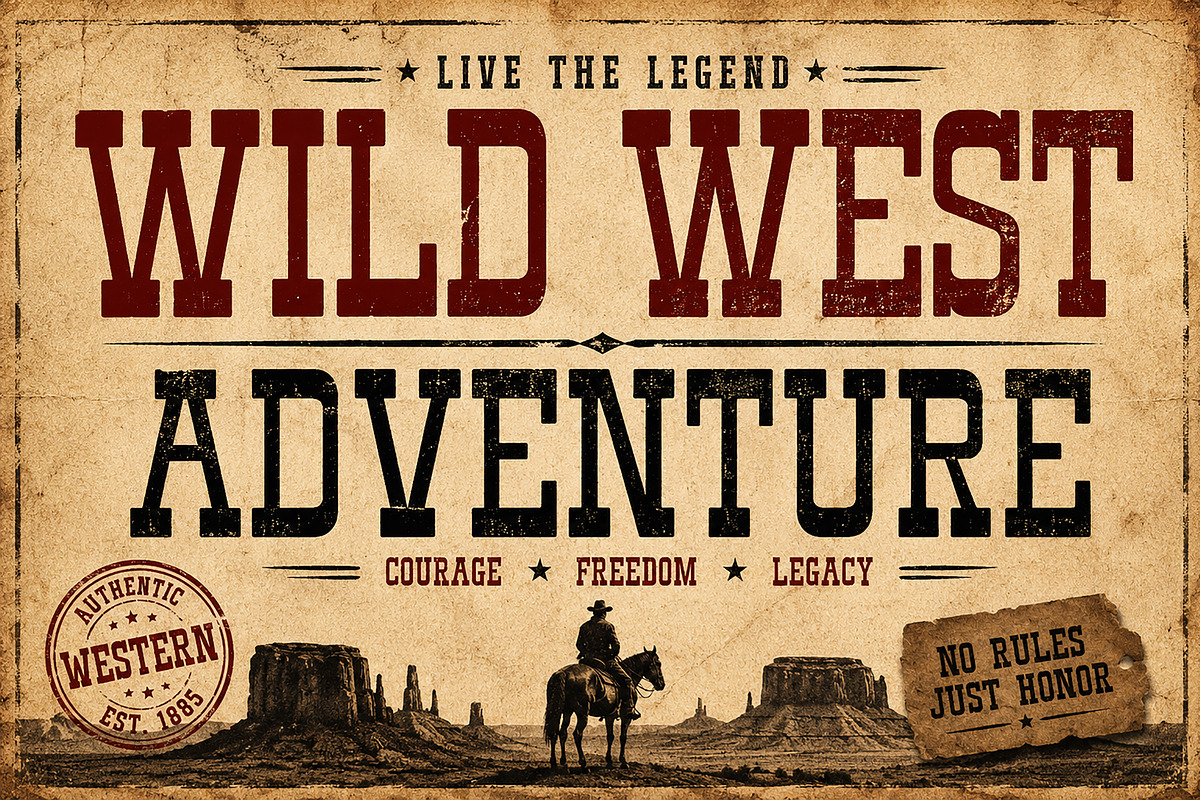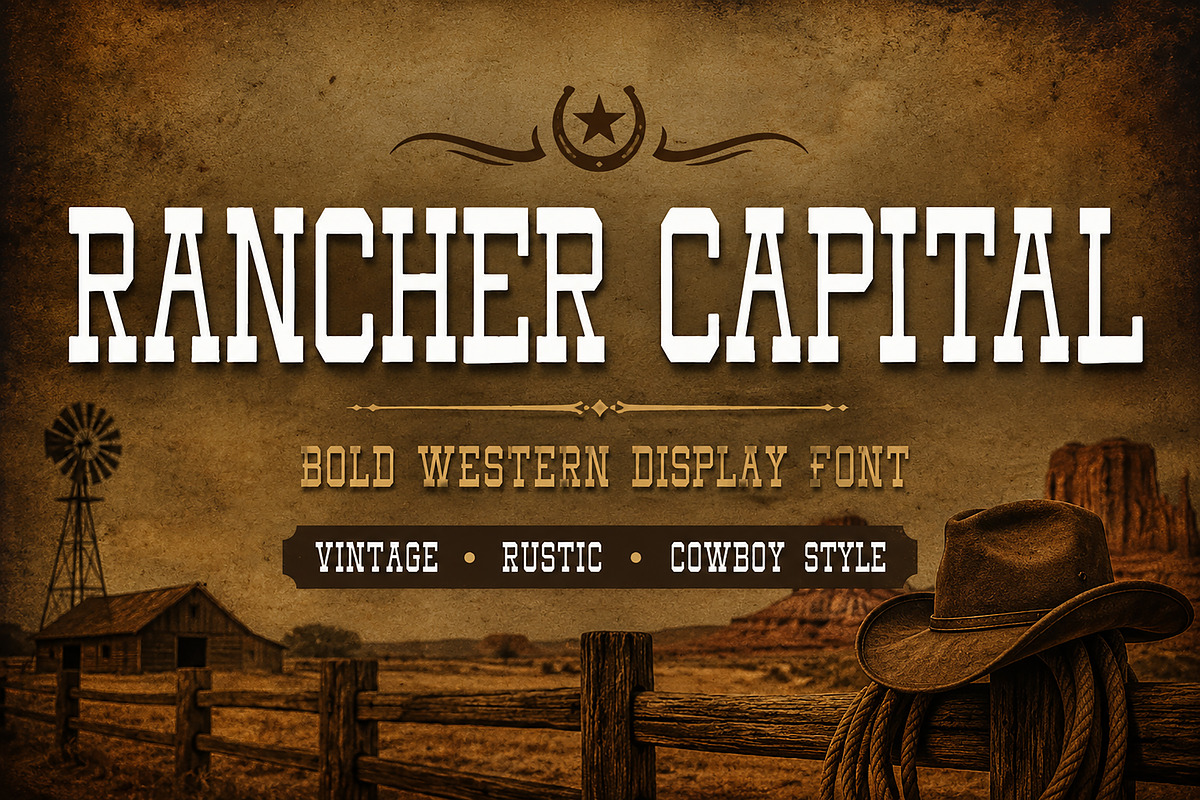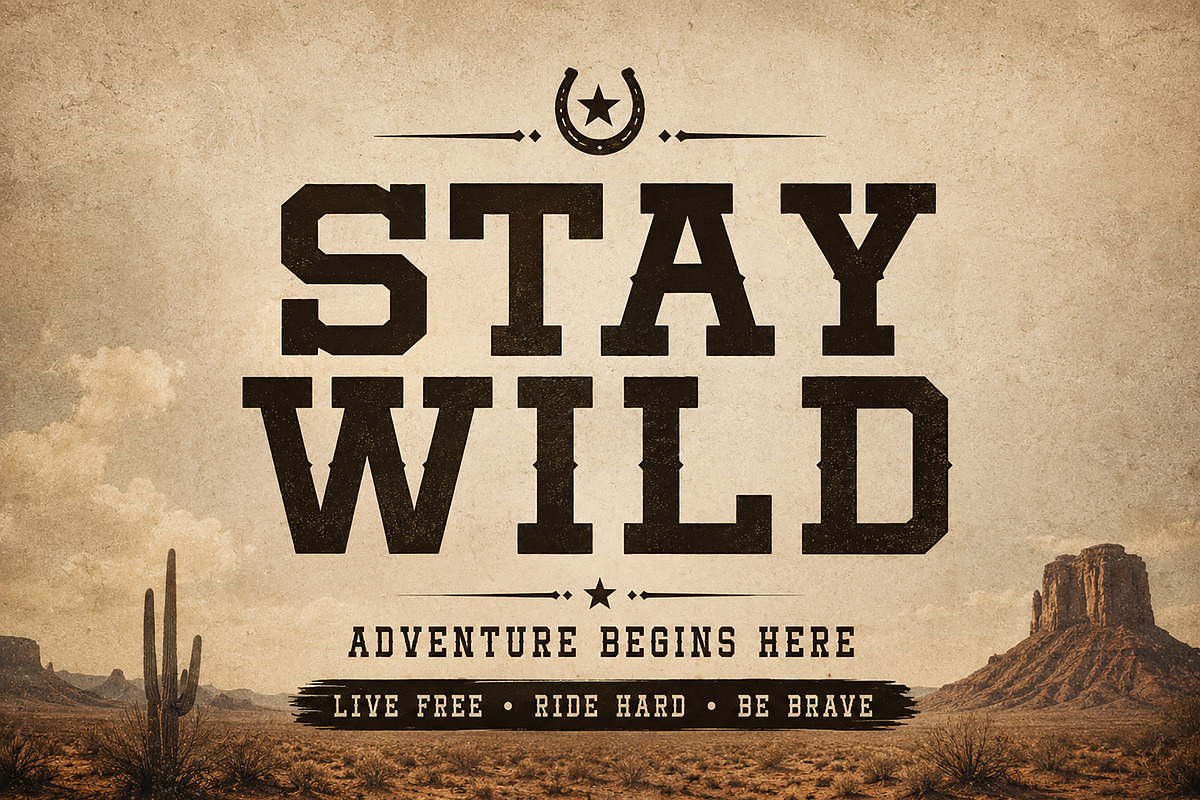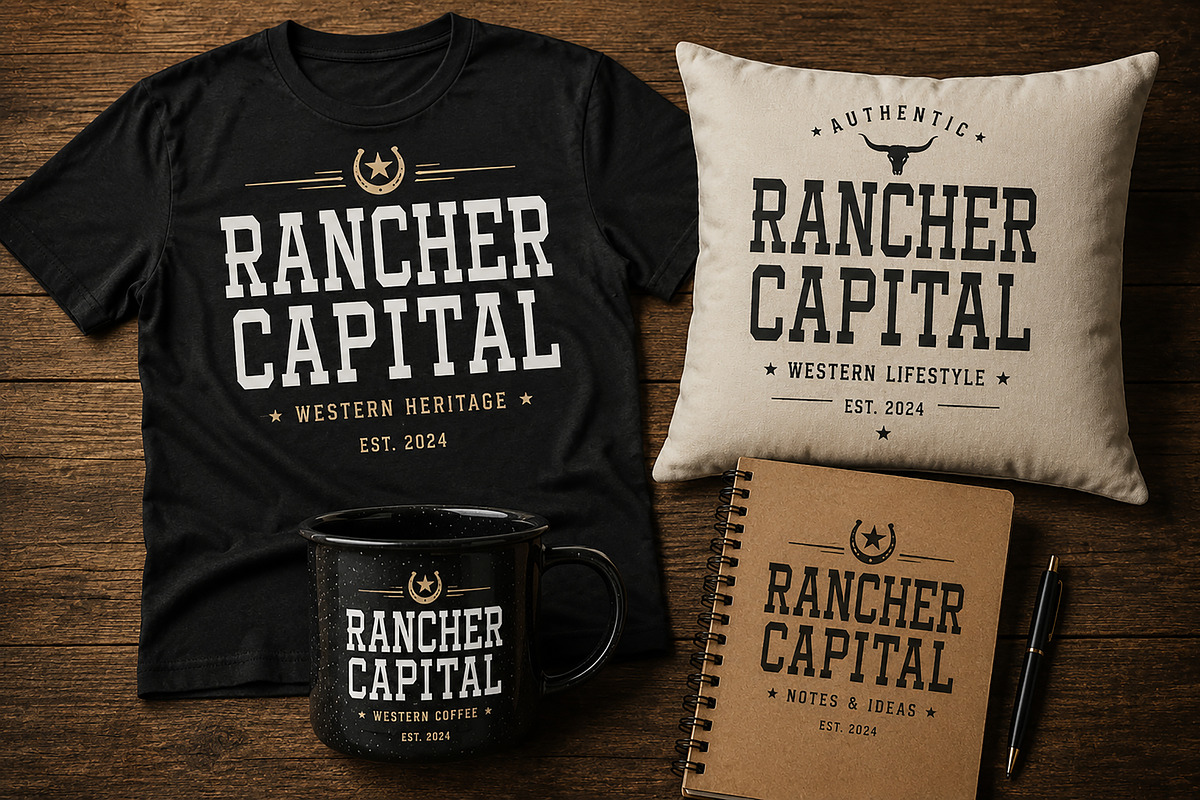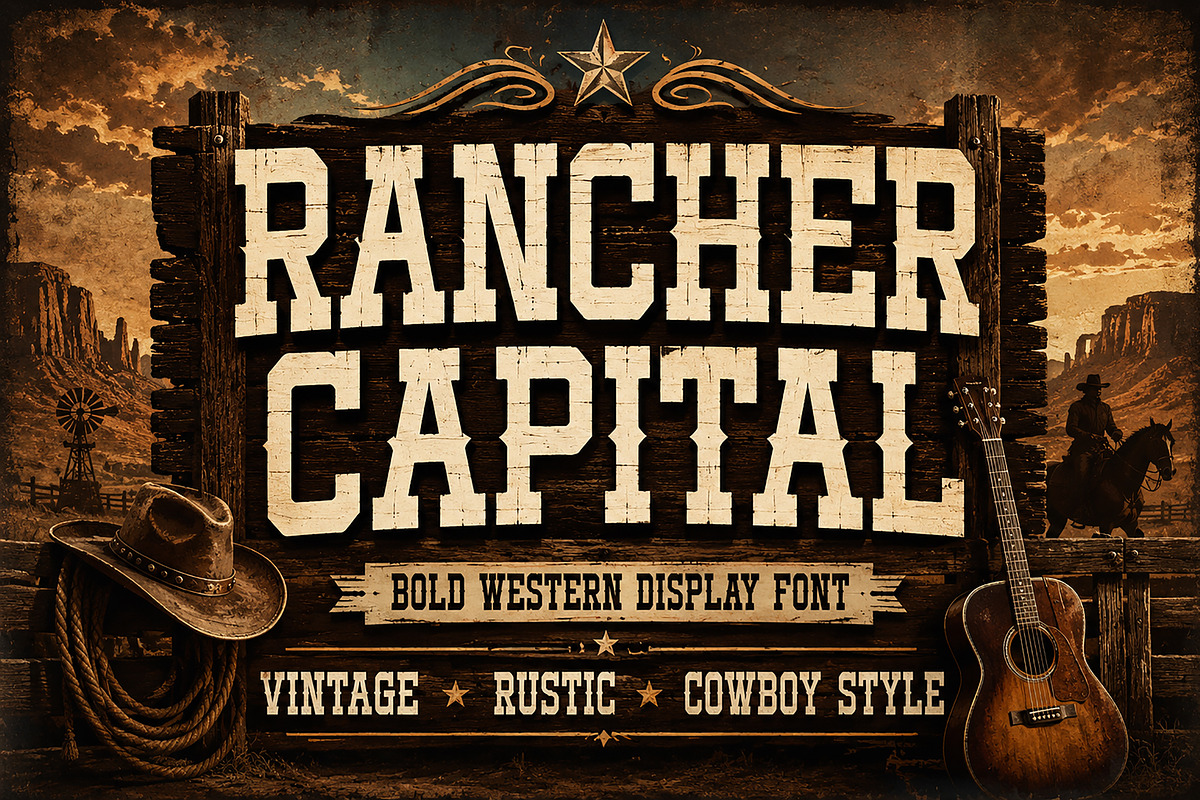
Rancher Capital
Rancher Capital is a bold western display font inspired by vintage cowboy signage, old ranch branding, and rustic Americana aesthetics. Designed with strong slab serif structures and rugged character details, this typeface delivers an authentic Wild West feel perfect for impactful headlines and standout branding.
Its solid, masculine letterforms make it ideal for logos, posters, apparel, merchandise, whiskey labels, rodeo branding, packaging, and rustic-themed projects. Whether you're creating vintage posters, western logos, or bold editorial designs, Rancher Capital brings timeless frontier energy into your work.
Perfect for designers looking for a strong, nostalgic, and adventurous typeface with a classic western personality.
Best For:
Western Logos
Vintage Posters
Cowboy Branding
Whiskey Labels
Ranch Identity
Apparel Design
Packaging
Rustic Editorials